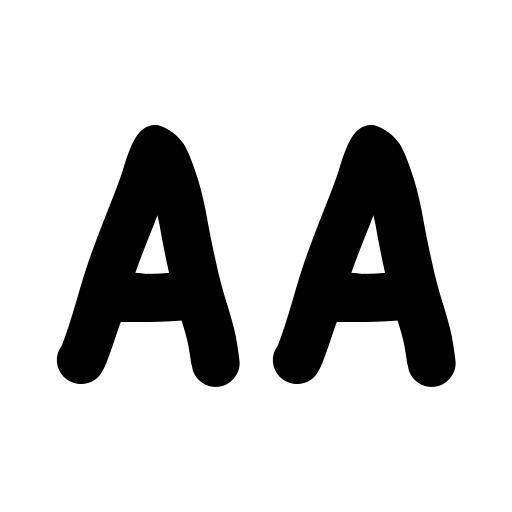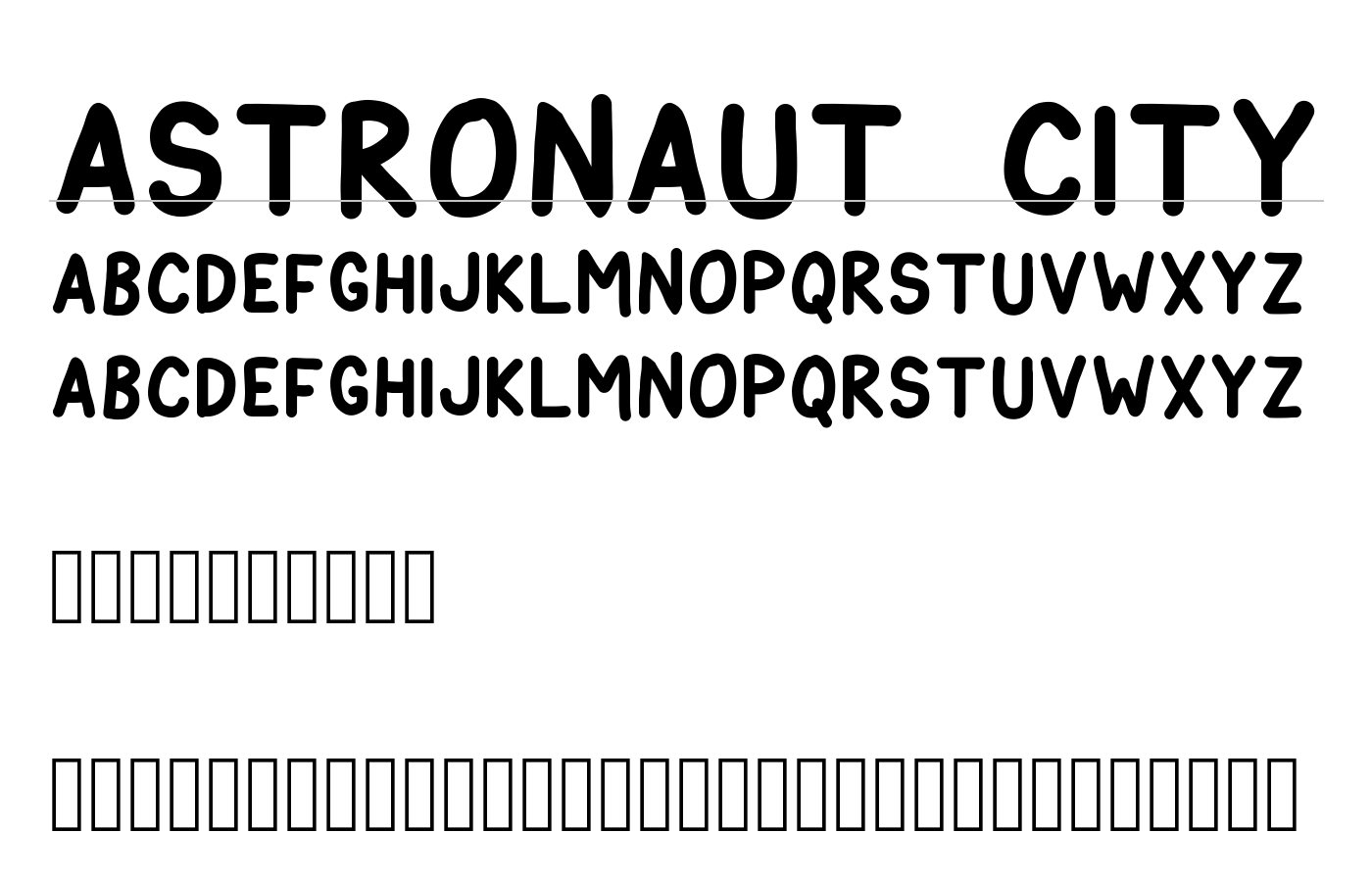
Astronaut City is a playful, rounded sans-serif font with a casual handwritten feel, featuring even stroke weight and moderate x-height for good readability. Its friendly, informal style makes it perfect for children's books, creative branding, and fun headlines where approachability and charm are key. This font works especially well in designs seeking a warm, approachable vibe with a modern touch.
Astronaut City Font
About Astronaut City Font